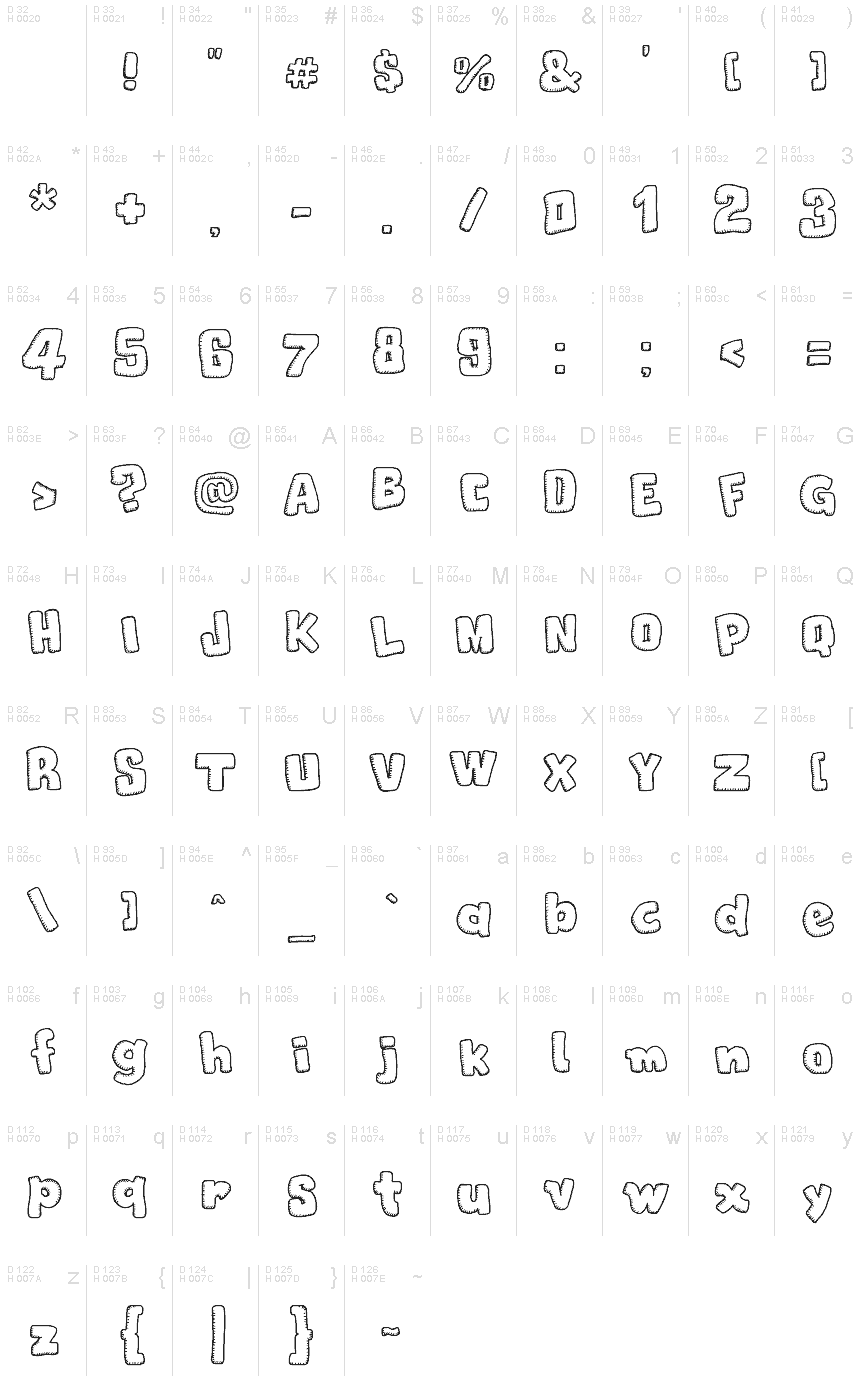
Christmas Cookies Bold
Christmas Cookies Bold is a delightful font from the Christmas Cookies family by Galdino Otten Fonts. Embracing a playful, cartoon style, this bold display typeface evokes the warmth and joy of the holiday season. Each character seems to leap off the page with an air of festive excitement, perfect for capturing attention in any design.
Ideal for holiday cards, festive banners, event posters, and children's books, Christmas Cookies Bold brings a sense of whimsy and cheer. Its robust form ensures readability while adding a merry flair to any project. Embrace the spirit of the holidays with this charming and lively font!